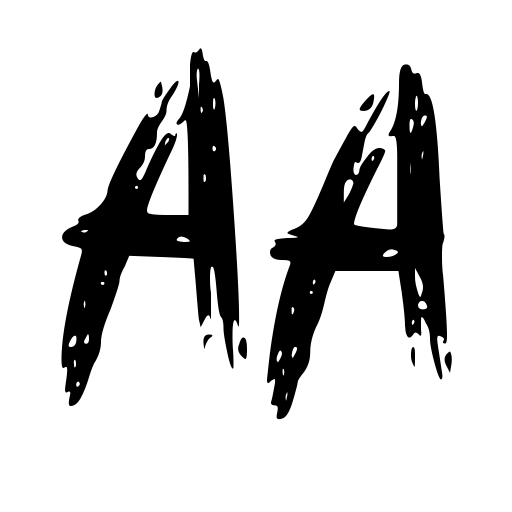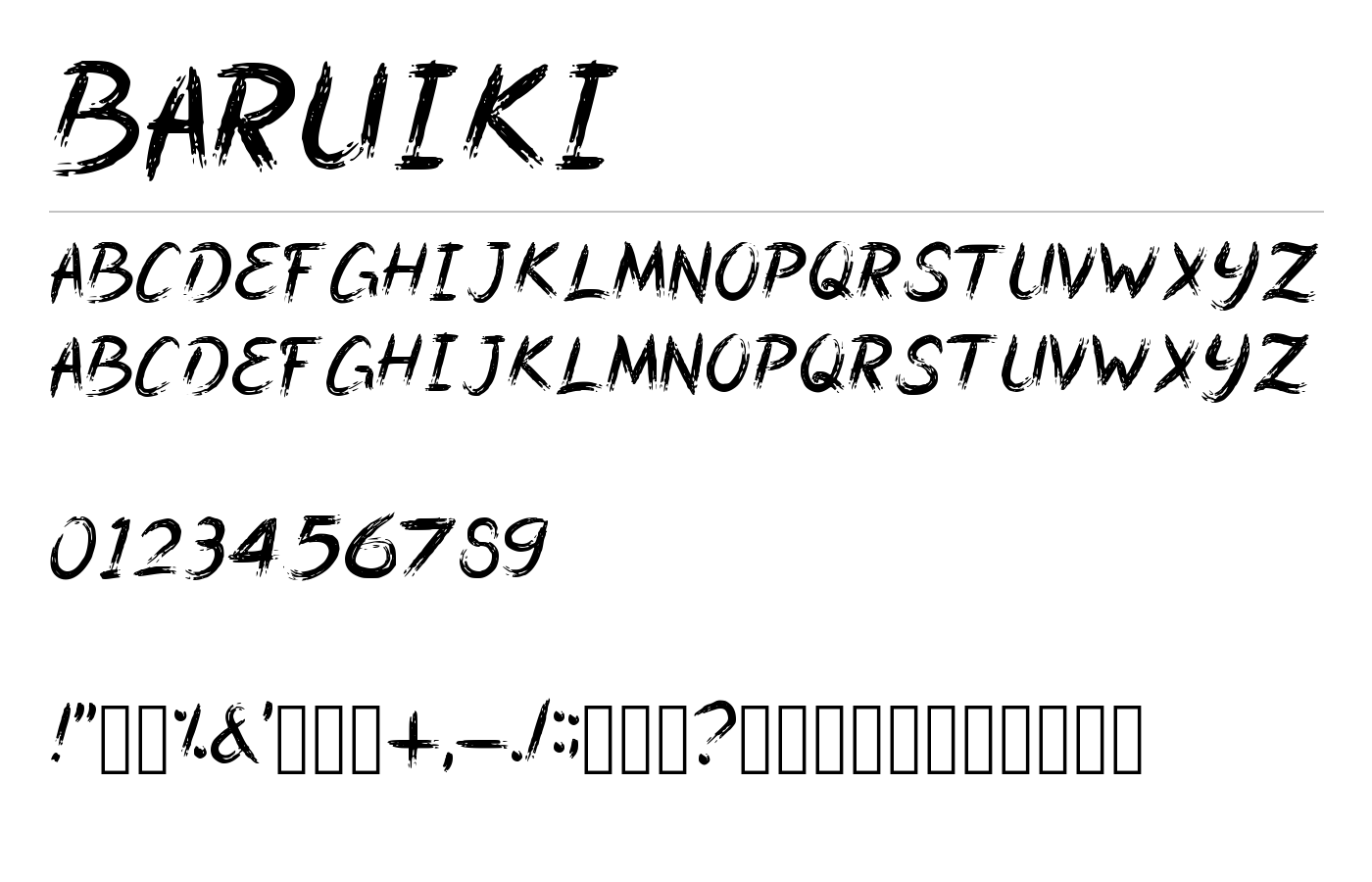
Baruiki is a bold, brush-style sans serif font with an energetic and textured appearance, featuring irregular, hand-painted strokes that create a dynamic and rustic feel. Its slightly condensed letterforms and rough edges make it ideal for designs seeking a lively, informal vibe, perfect for creative branding, posters, and expressive headlines that demand attention with personality.
Baruiki Font
About Baruiki Font